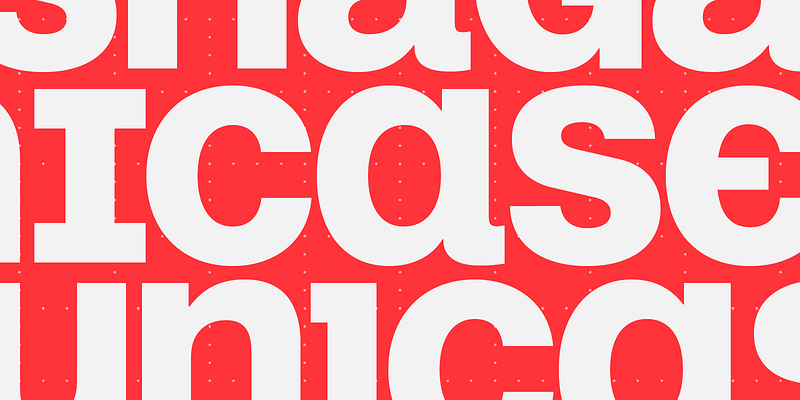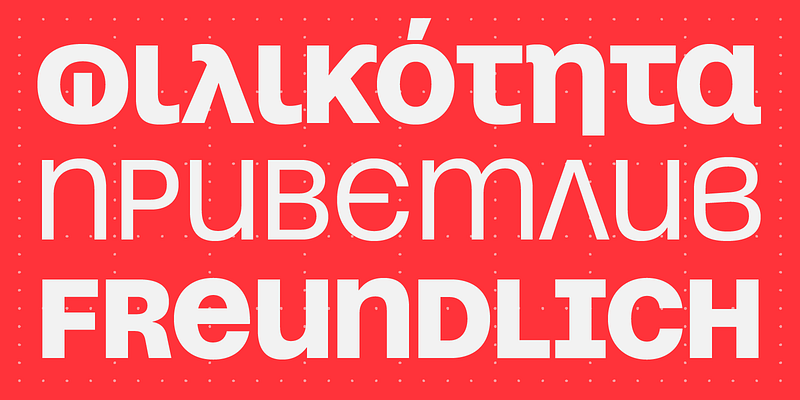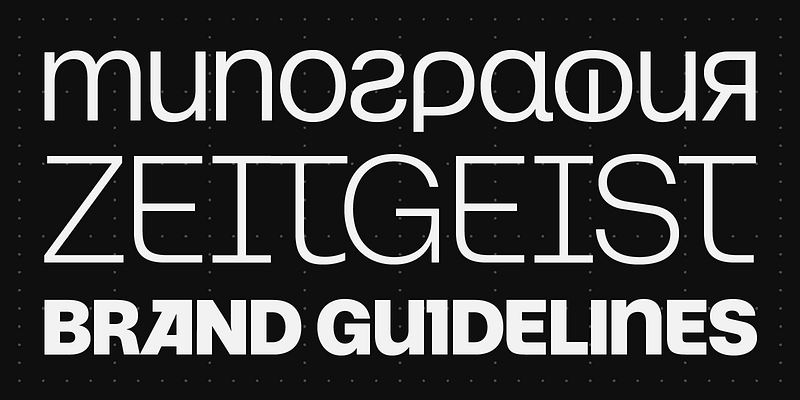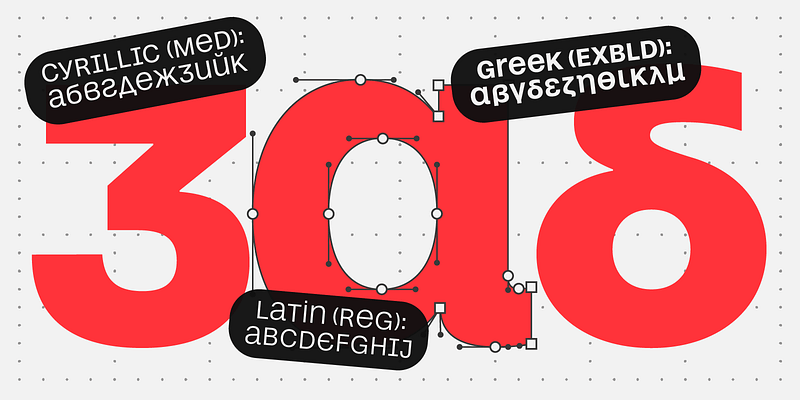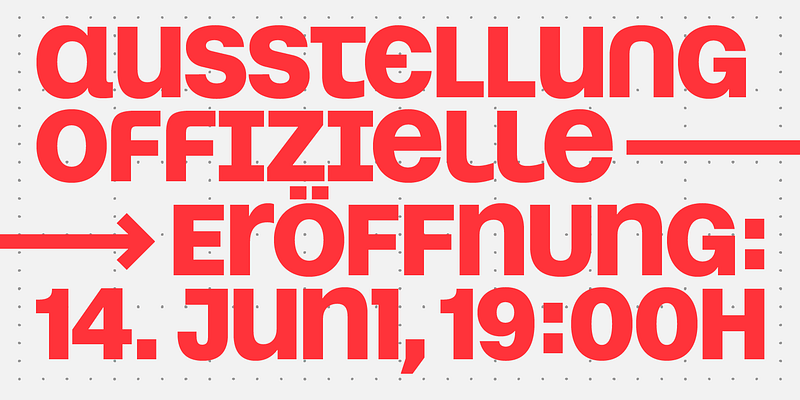
Unicase typography was commonly used by Bulgarian typographers in the past century. Snaga Uni resulted from the authors’ in-depth examination of this rich typographic legacy, trawling through a vast body of work comprising lettering, covers, and type sketches from the 20th century and beyond. Part of the process was fruitful discussions with Bulgarian type designer and illustrator Kiril Zlatkov, who followed the project’s development since its earliest phase.
On a script level, creating a unicase for Latin or Greek posed no real problem. Greek consultant Irene Vlachou’s guidance and input encouraged the authors to explore ancient uncial letters. Formerly disused letterforms were revived to create a surprising, modern look for Snaga Uni’s Greek complement.
However, a unicase squared or standard Cyrillic proved more difficult as there are very few differences between the uppercase and lowercase letters. To achieve sufficient distinction between the two cases, the round Cyrillic or so-called Bulgarian letterforms were required.
This approach neutralized the ongoing issue of how multiple conventions are integrated into contemporary digital fonts. Since both squared and round Cyrillic operated on the same level as uppercase and lowercase, there was no need to formally separate the main and secondary letterforms. This approach made the unicase an extremely friendly format for the Cyrillic part of the Snaga Uni.
Feedback from early adopters led to the design of many alternate shapes during production. Instead of narrowing down the options, these alternates were kept and integrated into stylistic sets. This turned Snaga Unicase into a typographic puzzle, an exciting playground for creating covers, posters, editorial design, and instant logos with a unique typographic texture.